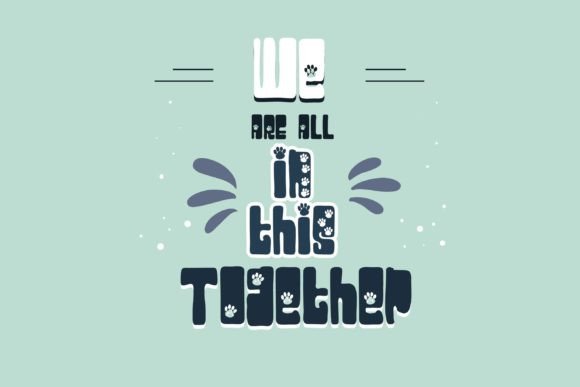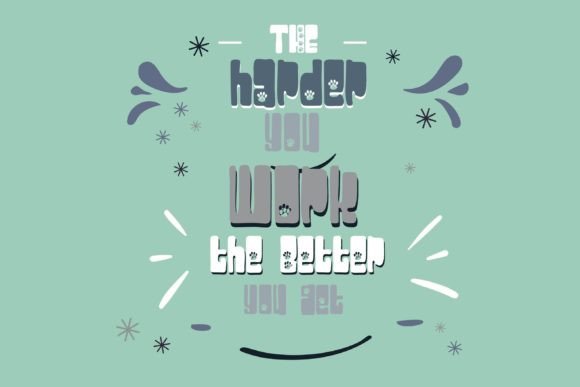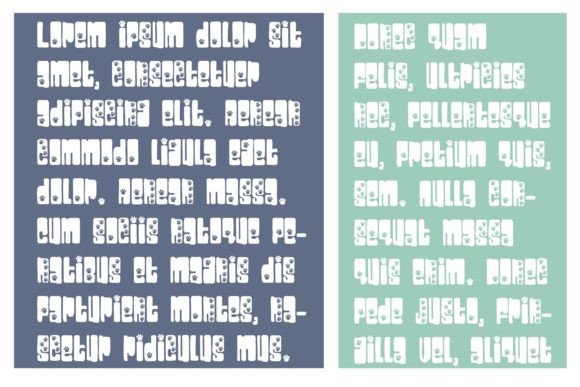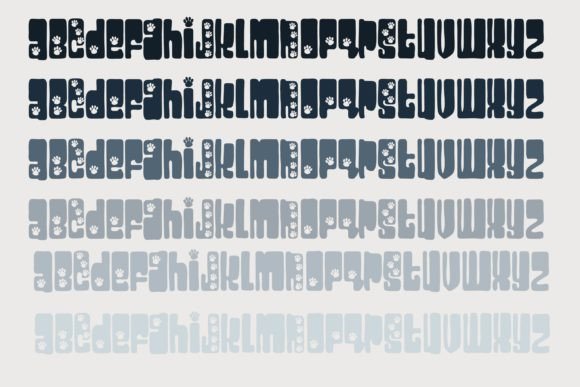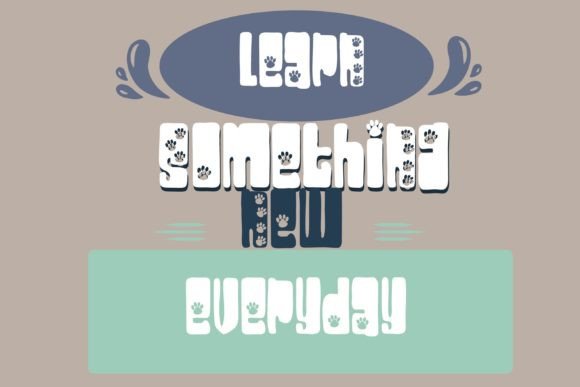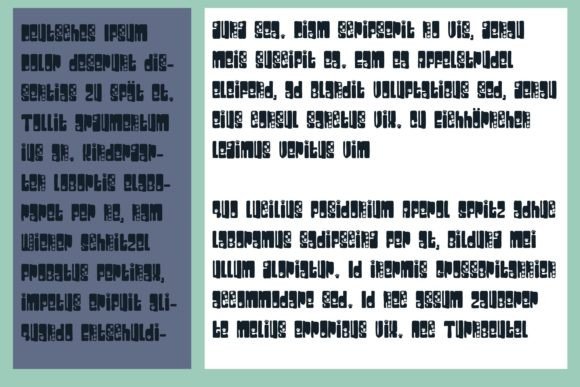
Introduction to Platonic Paws Font Font
Fonts play a crucial role in design, and the Platonic Paws Font font is a typeface that brings both character and versatility to any project. Whether you’re working on a branding project, a website, or a print design, the Platonic Paws Font font offers a unique style that can elevate your work.
| 📌 Font Name | Platonic Paws Font |
| 👤 Author | Illustration Ink |
This retro, hippy-style font features cat paws throughout.
A hand-crafted font is a font that is designed to feel unique and crafty It is often used for invitations, greeting cards, and other items.
Key Features of Platonic Paws Font Font
Why Choose Platonic Paws Font Font?
The Platonic Paws Font font is more than just a typeface – it’s a design tool that helps you communicate your message with style and clarity. Its unique character set and versatile design make it suitable for a wide range of applications, from elegant invitations to bold headlines.
With its carefully crafted letterforms and balanced proportions, the Platonic Paws Font font ensures readability and visual appeal across all mediums.
What makes Platonic Paws Font font special?
The Platonic Paws Font font stands out with its unique design, exceptional readability, and versatility across various design applications.